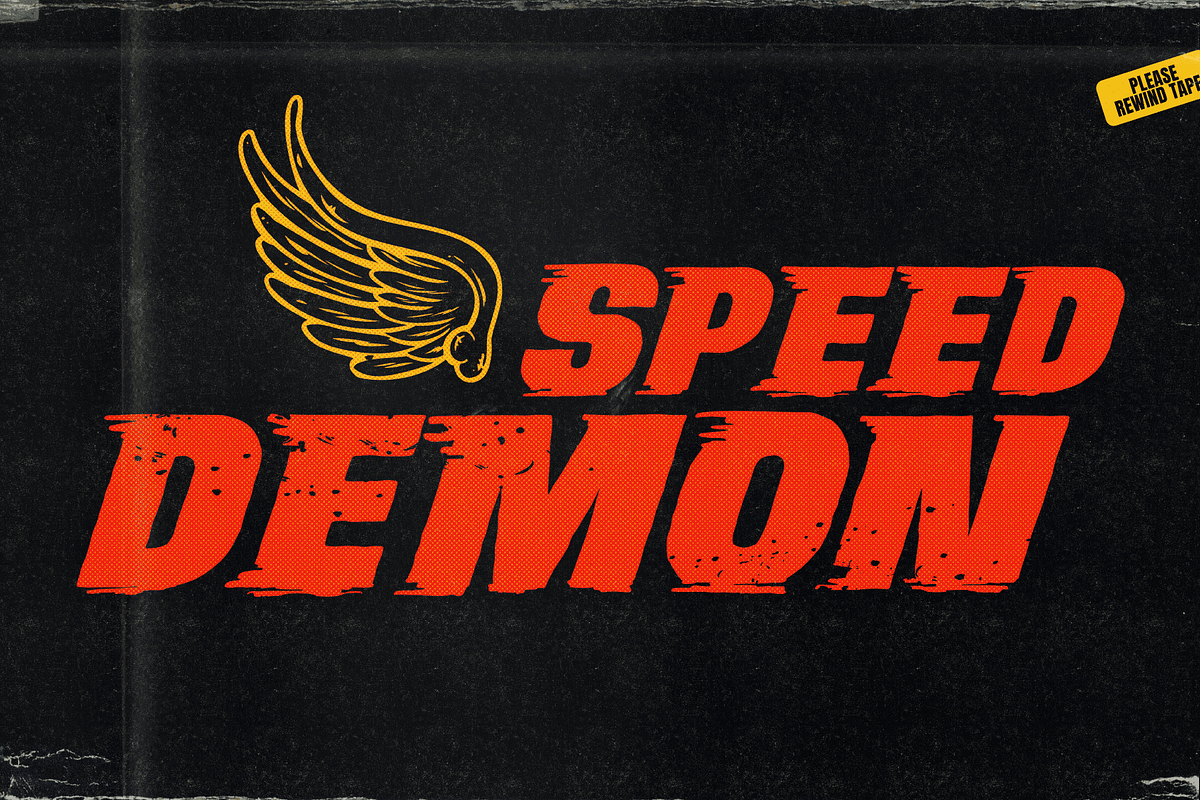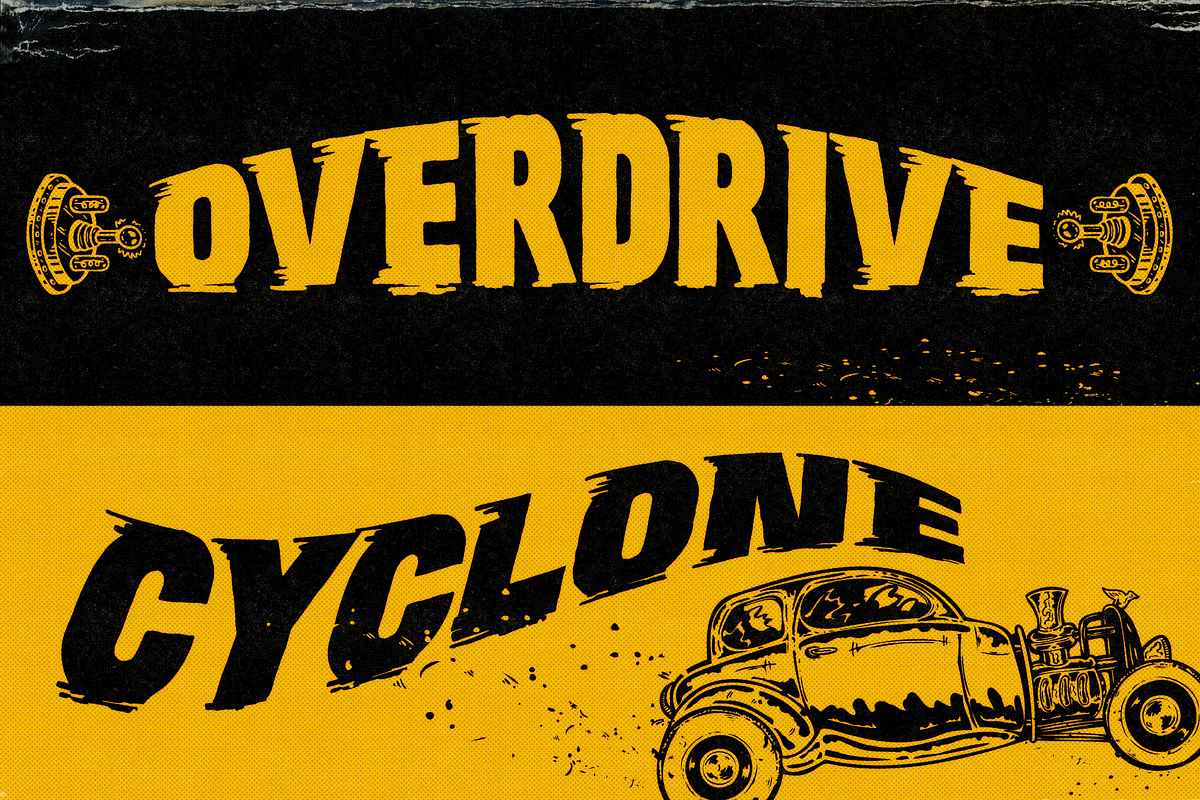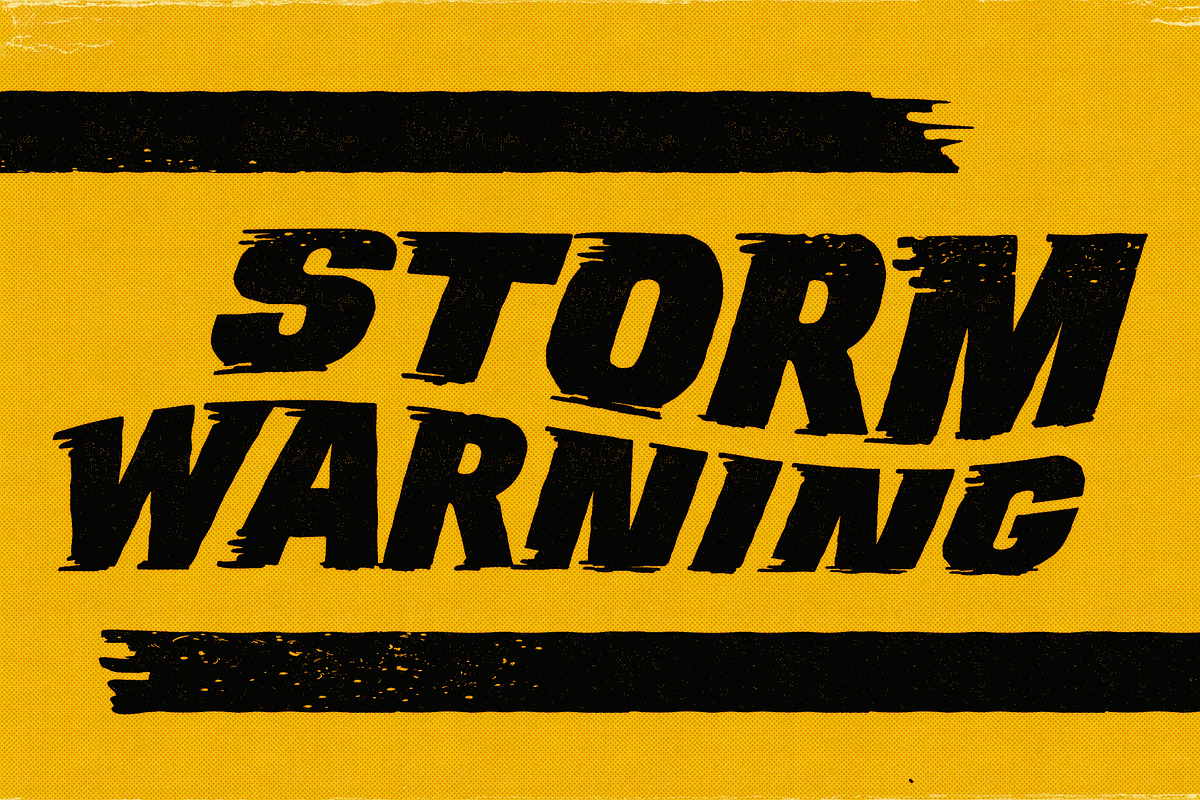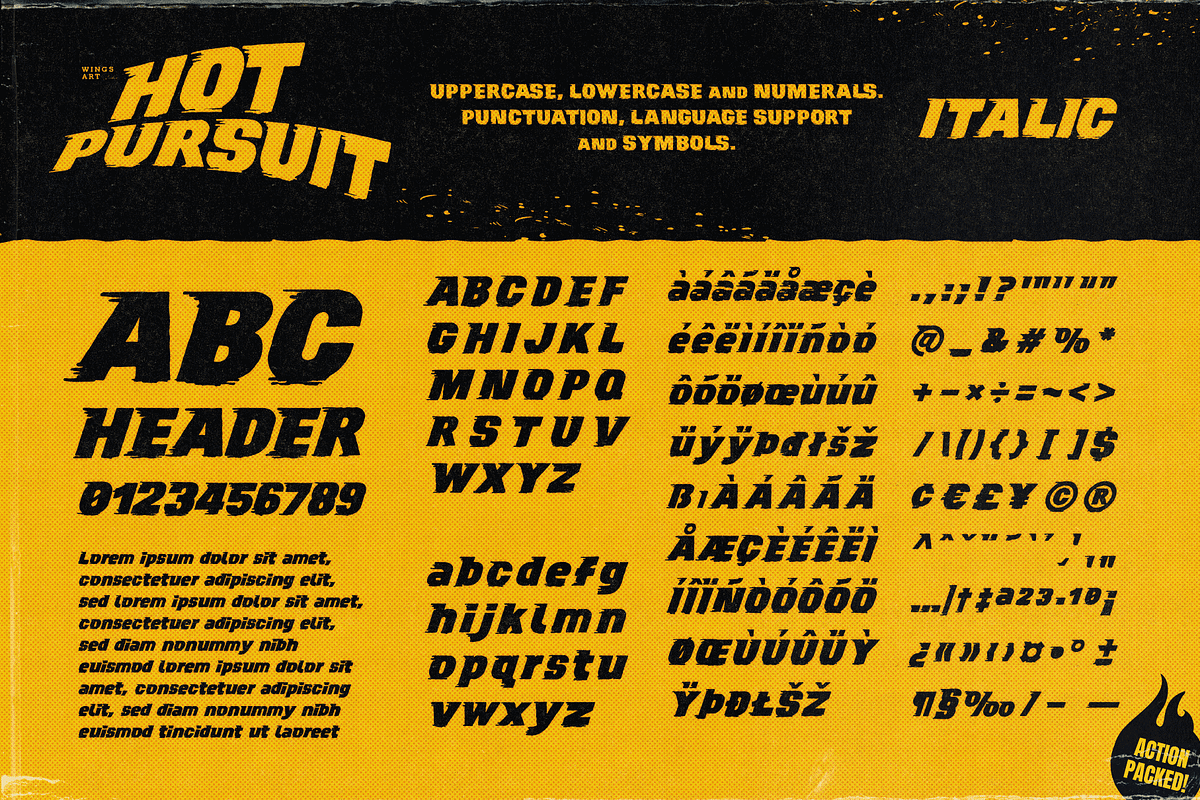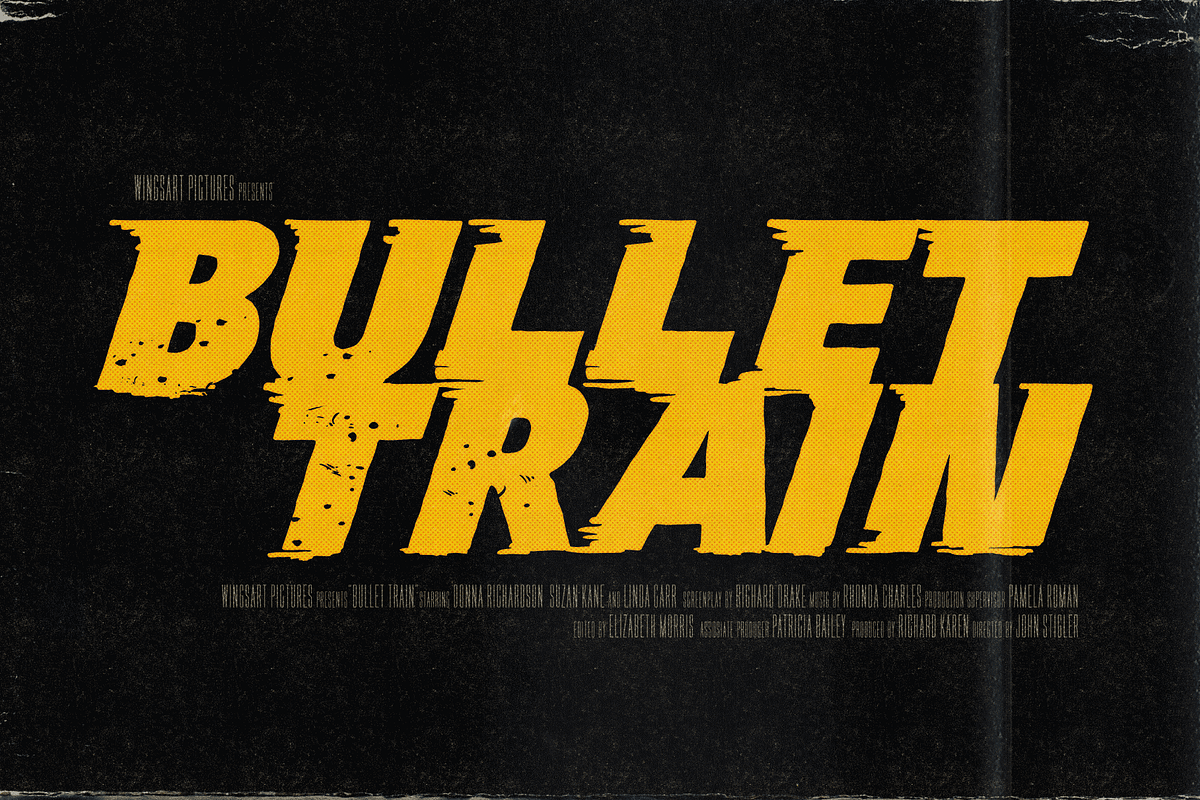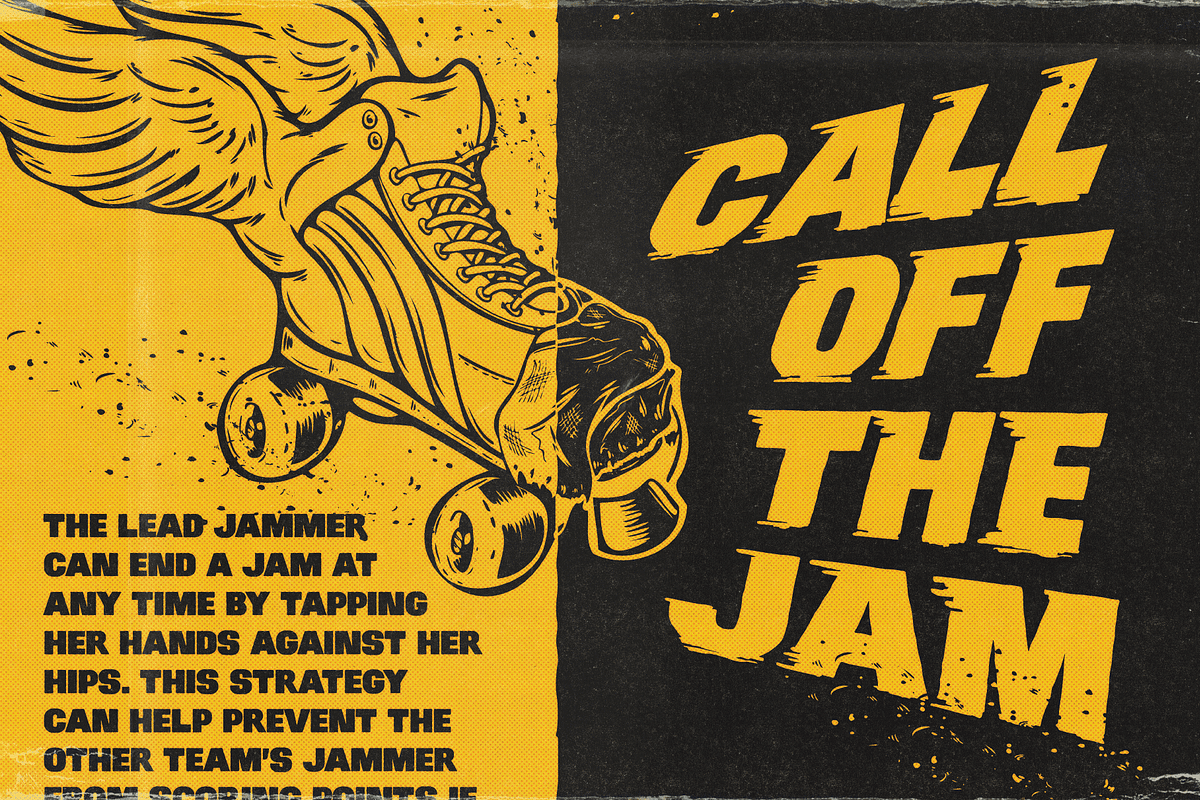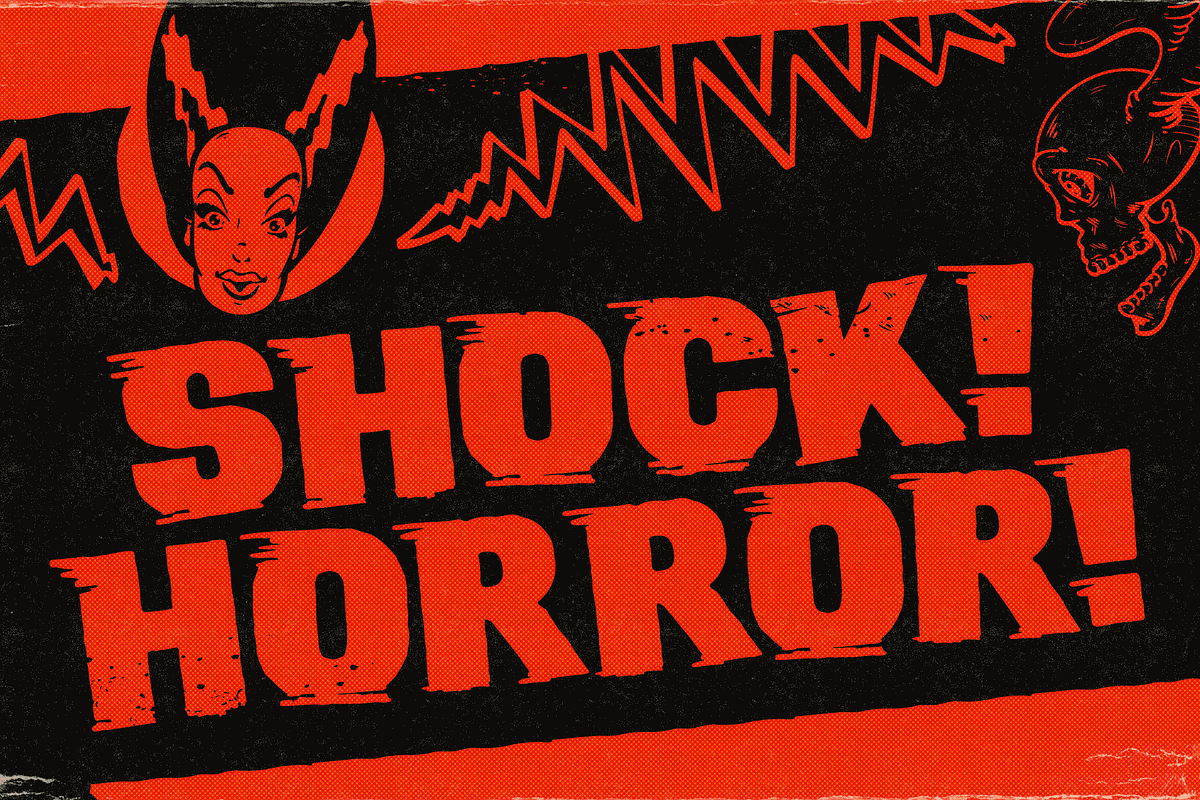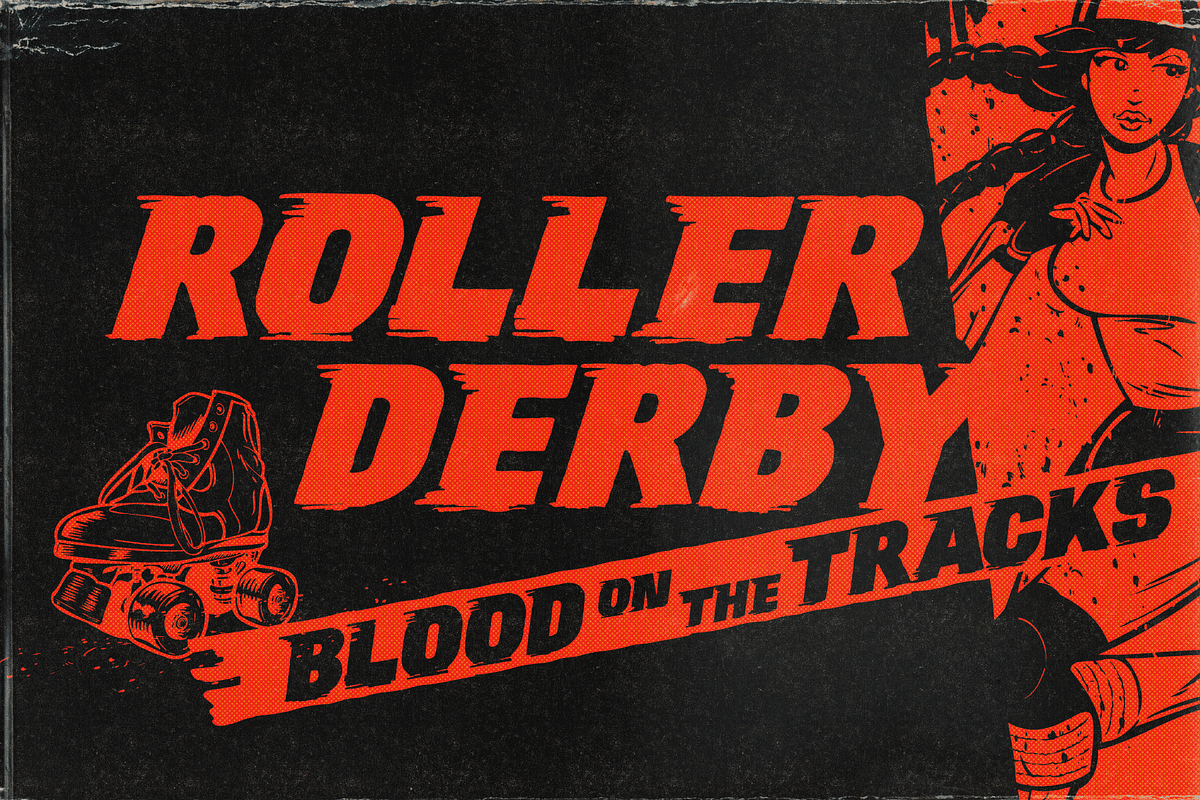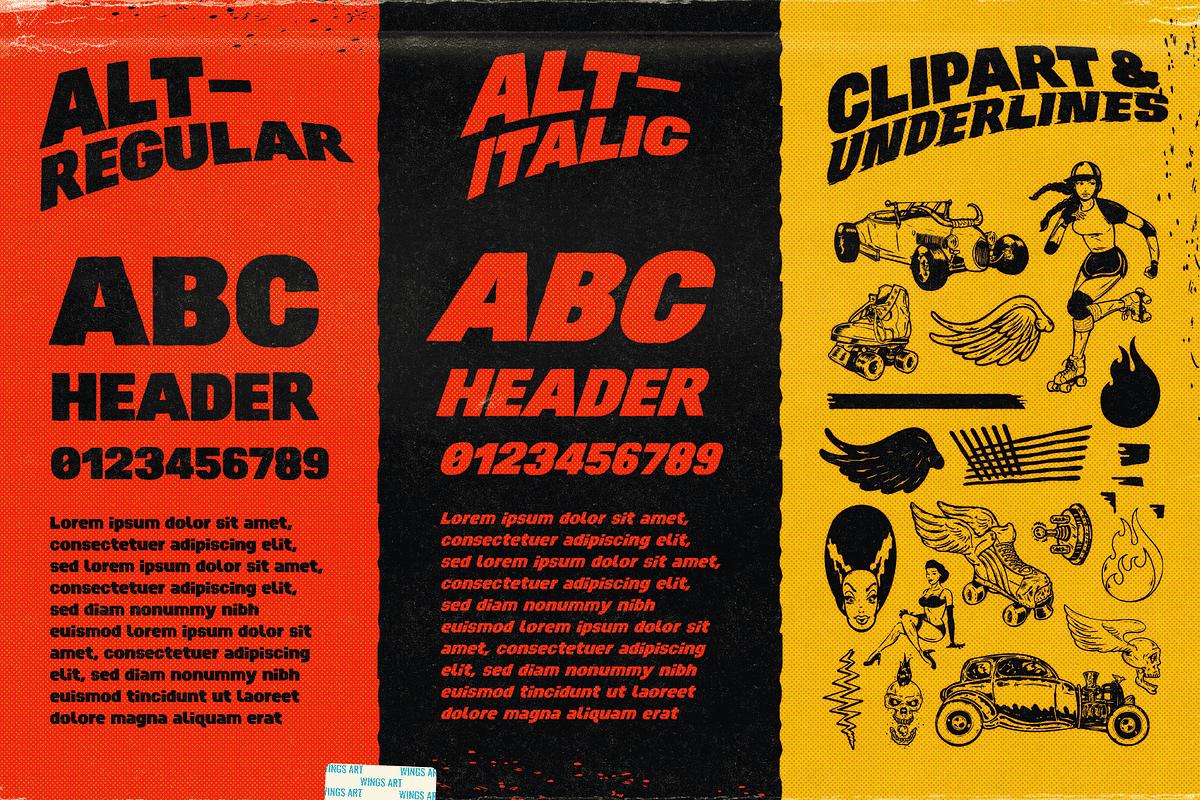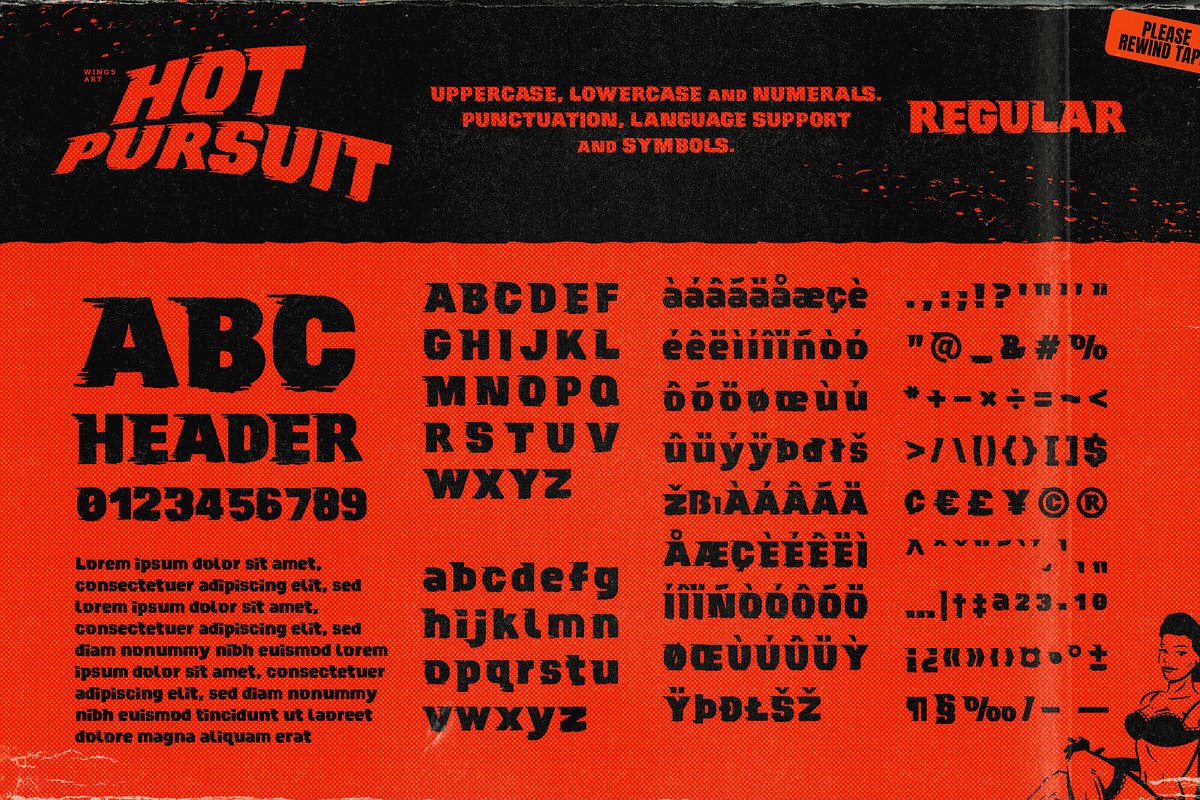
Hot Pursuit: Grind-house Font
A grungy hand-drawn font with attitude inspired by comic books, Roller Derby and bad Grindhouse movies.
Hot Pursuit is a boiling pot of pop-culture references ranging from 70s chase movies to Roller Derby, horror comics to Grindhouse cinema. All combining to create a hand-drawn font for grungy designs with maximum punch. Supplied in regular and italic styles, it creates titles that race off the page, perfectly suited for dynamic movie posters and headlines.
Along with the 4 font styles you’ll also find a host of original comic art by Christopher King, plus symbols and underlines to compliment your type.
Hot Pursuit contains unique uppercase and lowercase characters, numerals, punctuation and language support. It’s a bad-ass font ready for your t-shirts, posters, stickers, movie titles, YouTube videos and more! Check out the visuals to see it in action for yourself.